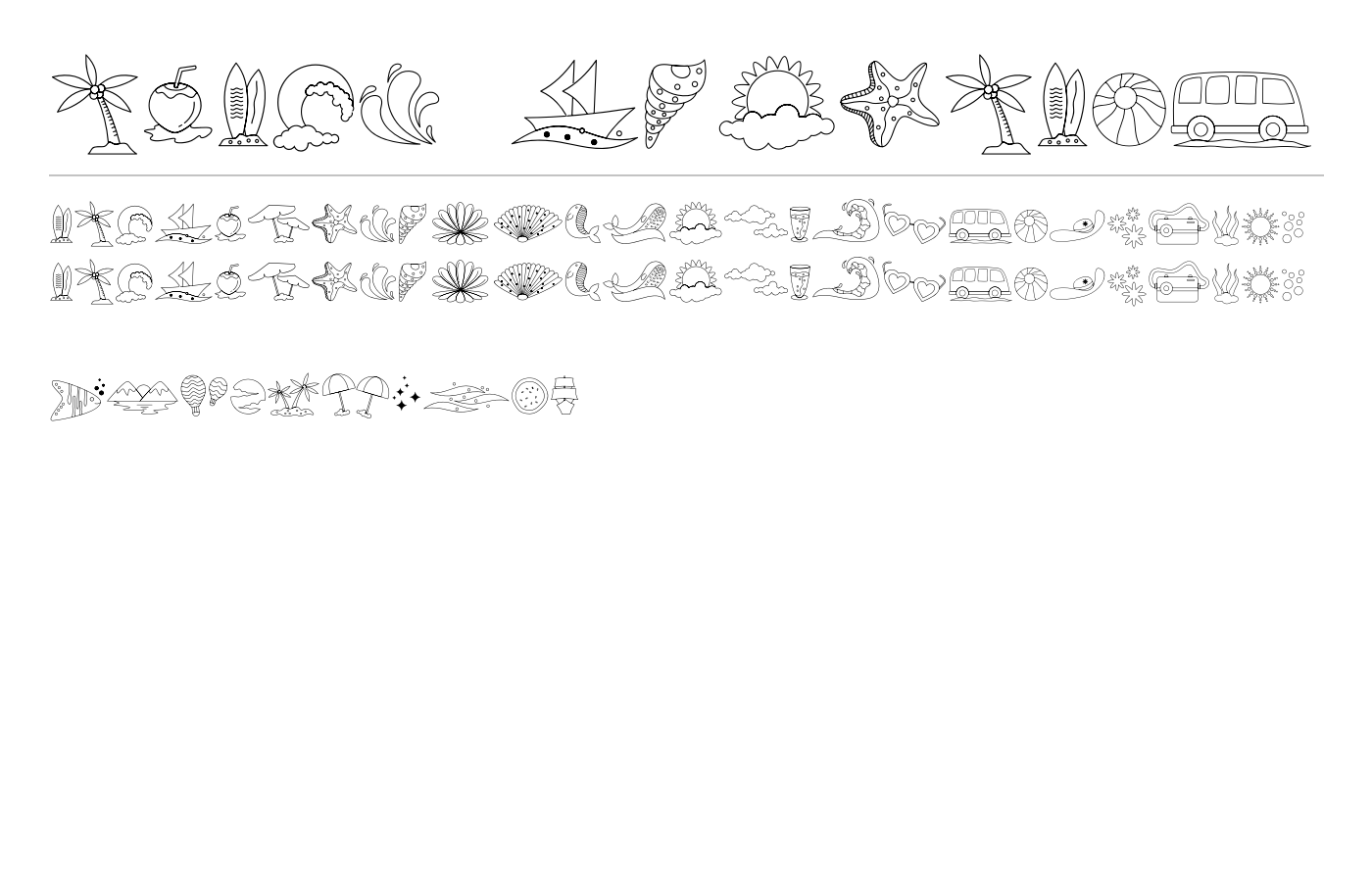
Beach Dingbats Font is a playful and charming dingbat typeface featuring finely detailed line drawings of beach and ocean-themed icons. Its light and delicate strokes capture a relaxed, summery vibe, making it perfect for adding fun, casual accents to invitations, posters, websites, and branding related to travel, vacation, or coastal lifestyles. This font's whimsical visuals instantly evoke a sense of leisure and adventure, ideal for creative projects that want to communicate warmth and relaxation.
Beach Dingbats Font
About Beach Dingbats Font